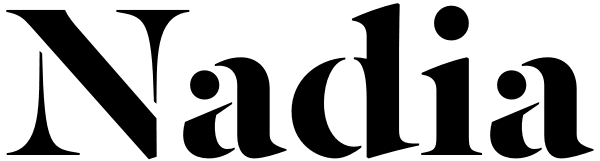
Nadia
Nadia is an original design by Alex Kaczun. It is a modern stencil interpretation of Granjon Oldstyle, highlighted by large elongated serifs, generous proportions and a large x-height. It is an elegant display for headlines as well as text. Named...